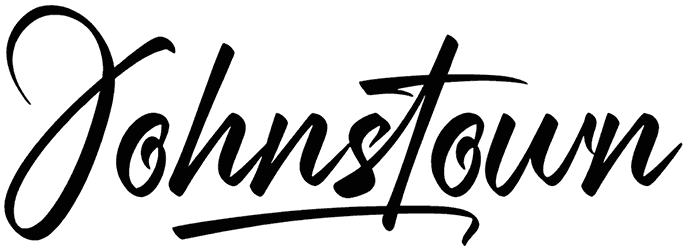
Johnstown Font
Johnstown is an eye-catching script font that immediately awakens interest. This well-designed font has an elegant style and seems memorable. You may use the Johnstown font in various cases, such as brochures, invitation cards, and prints on T-shirts; however, it does not support numbers and symbols.
The handwritten font’s letters have a stunning form with smooth edges and rounded shapes, creating an attractive personality. So download this font without hesitation.